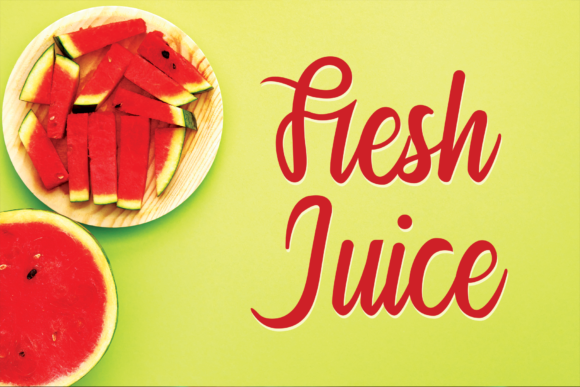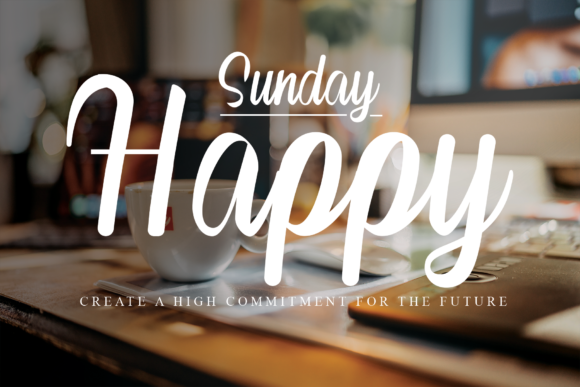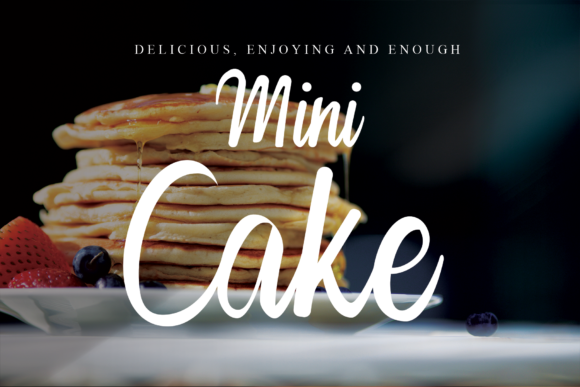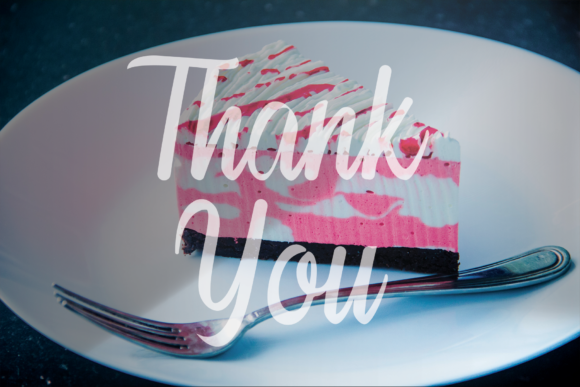
Discover the Flavor of Fresh Juice Font
Meet Fresh Juice Font, an elegant and distinct handwritten font that’s sure to quench your thirst for unique style. Whether you’re designing wedding invitations, social media posts, or simply want to add a touch of personality to your stationery, Fresh Juice Font is the perfect addition to your toolkit. Its versatility and charm make it a valuable asset for designers, allowing you to create beautiful and eye-catching designs with ease.
Fresh Juice Font Key Features
- Font Family: Fresh Juice Font comes in 6 styles – Thin, Light, Regular, Medium, Bold, and Black.
- Size: The font size ranges from 8 to 100 points, making it suitable for a wide range of applications.
- Resolution: Designed for high-resolution displays, Fresh Juice Font is ideal for use in digital media, such as websites, mobile apps, and social media platforms.
- Unique Characteristics: The font features a unique blend of modern and vintage elements, with a fresh and energetic feel that is perfect for creative projects and branding.
- Character Set: The font includes a comprehensive character set, including Latin, Cyrillic, and Greek alphabets, as well as punctuation and special characters.
Designer Review: Fresh Juice Font
Overall, I think the Fresh Juice Font has some great qualities, but also a few areas that could use improvement. Let’s dive in!
- ✨ Unique character set: I love the playful, handwritten feel of the font. It’s perfect for creating a fun and casual atmosphere.
- ✨ High-quality glyphs: The font has a smooth, refined appearance, even at smaller sizes.
- ✨ Wide language support: Fresh Juice Font covers a wide range of languages, making it a great choice for global projects.
- ⚠️ Limited style options: While the font has a unique feel, it’s not particularly versatile. If you’re looking for a font that can adapt to different contexts, this might not be the best choice.
- ⚠️ Not ideal for formal projects: The font’s playful nature makes it better suited for casual or creative projects. It might not be the best fit for formal documents or presentations.
In conclusion, Fresh Juice Font is a solid choice for projects where you want to add a touch of whimsy and personality. While it may not be perfect for every use case, its unique character set and high-quality glyphs make it a great option for creatives looking to add some visual interest to their work.
Tips for Getting the Most Out of Fresh Juice Font
- Use it for bold, eye-catching headlines
- Combine it with other fonts for a unique look
- Experiment with different font sizes and colors
The Fresh Juice Font is perfect for:
- Social media posts and ads
- Flyers and brochures
- Restaurant and cafe menus
- Event and party invitations
Alternatives to “Fresh Juice Font” for Designers
Great Vibes is a modern script font perfect for creating a relaxed and friendly atmosphere in designs. It is ideal for use in food, beverage, and wellness branding, as well as for creating invitations and promotional materials.
Compared to Fresh Juice Font, Great Vibes has a more elegant and refined feel, making it suitable for a wider range of applications.
Pacifico is a beautiful script font inspired by the Pacific coast of Mexico. It is perfect for creating a laid-back and beachy vibe in designs. It is ideal for use in travel, food, and lifestyle branding, as well as for creating promotional materials.